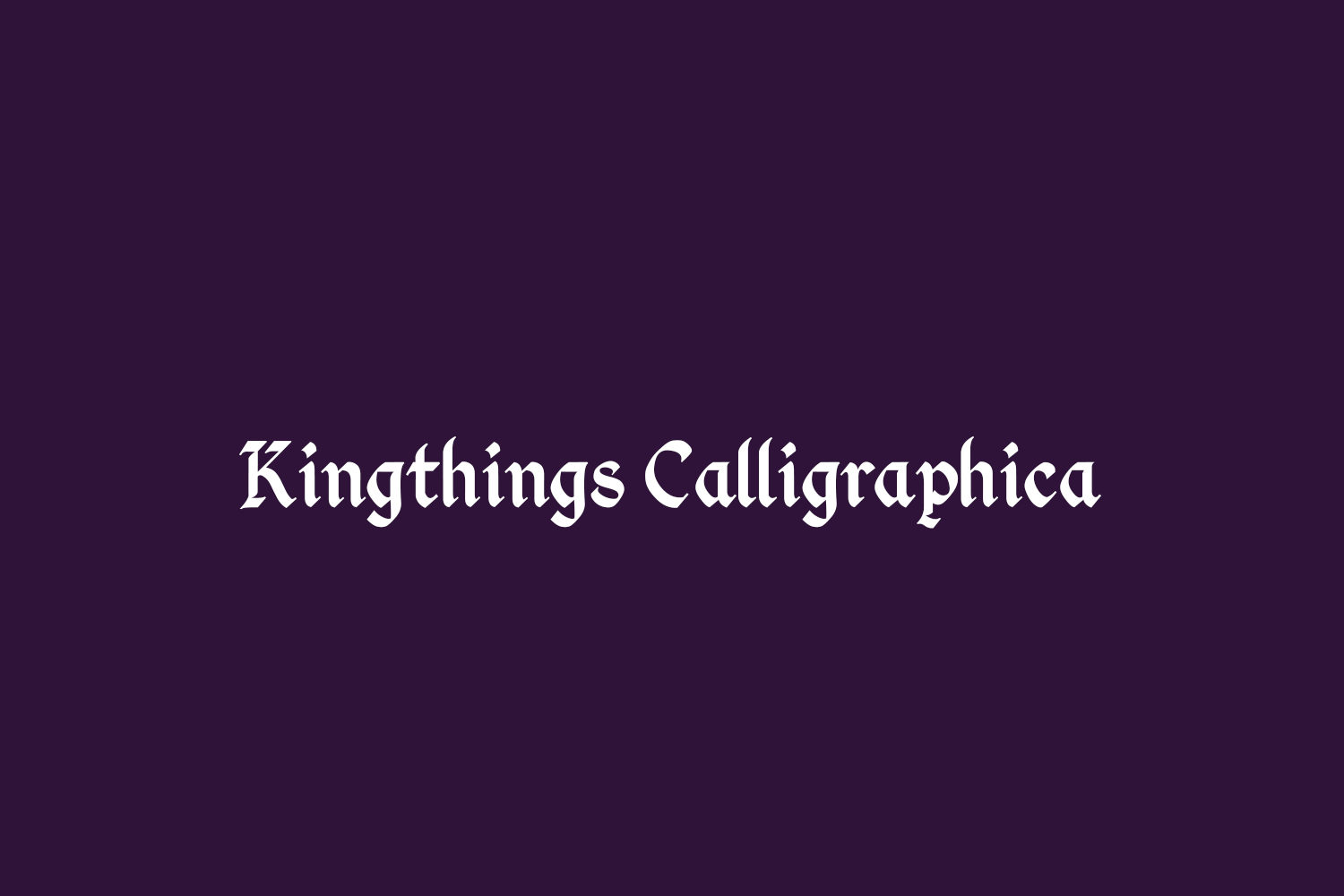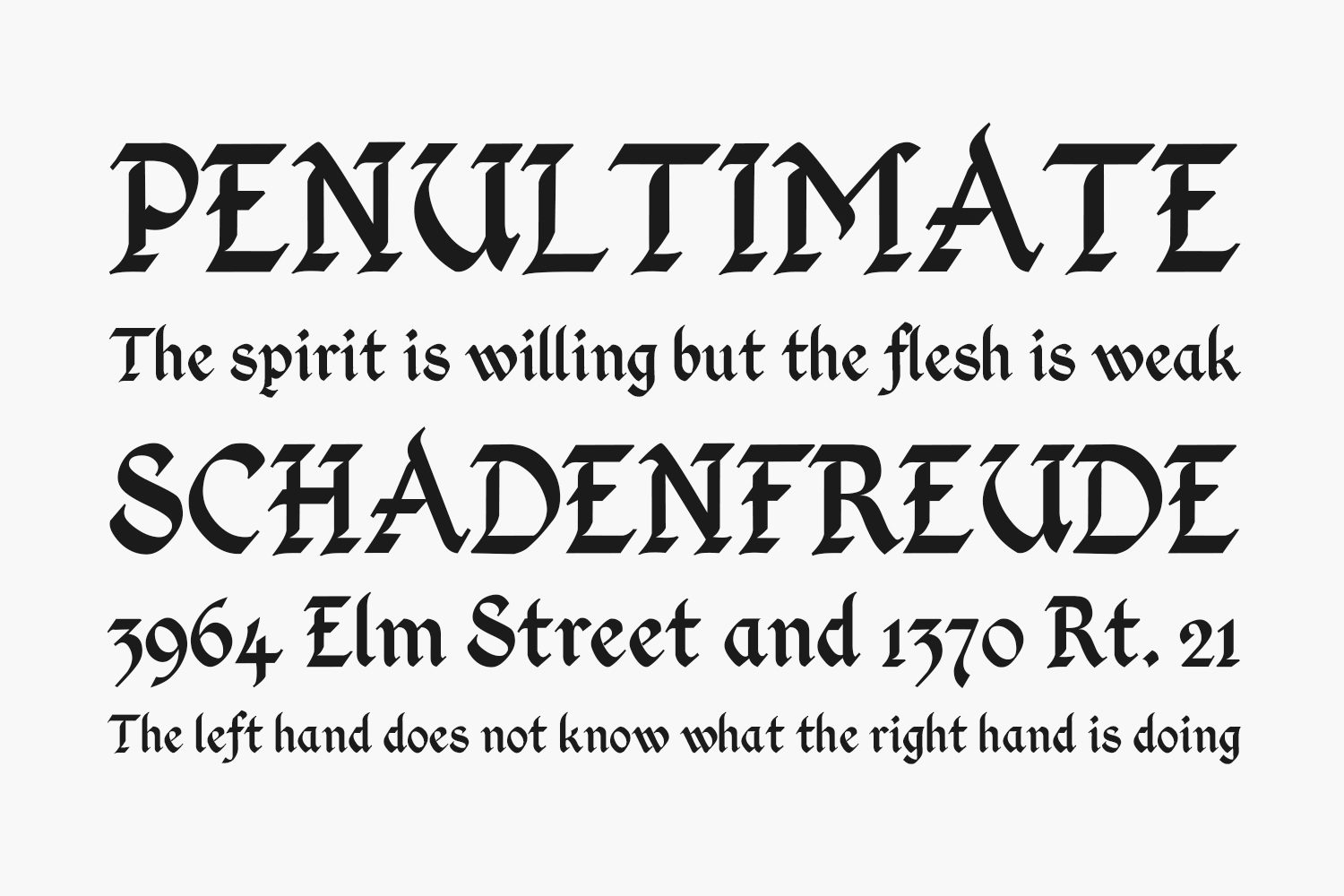
Kingthings Calligraphica Free Font is based on calligraphic lettering hands which I learned at school – a bit of a confusion of different forms that I liked. I now use this letterform for most of the hand calligraphy that I still produce – just works for me – never can remember the uppercase ‘N’ though.